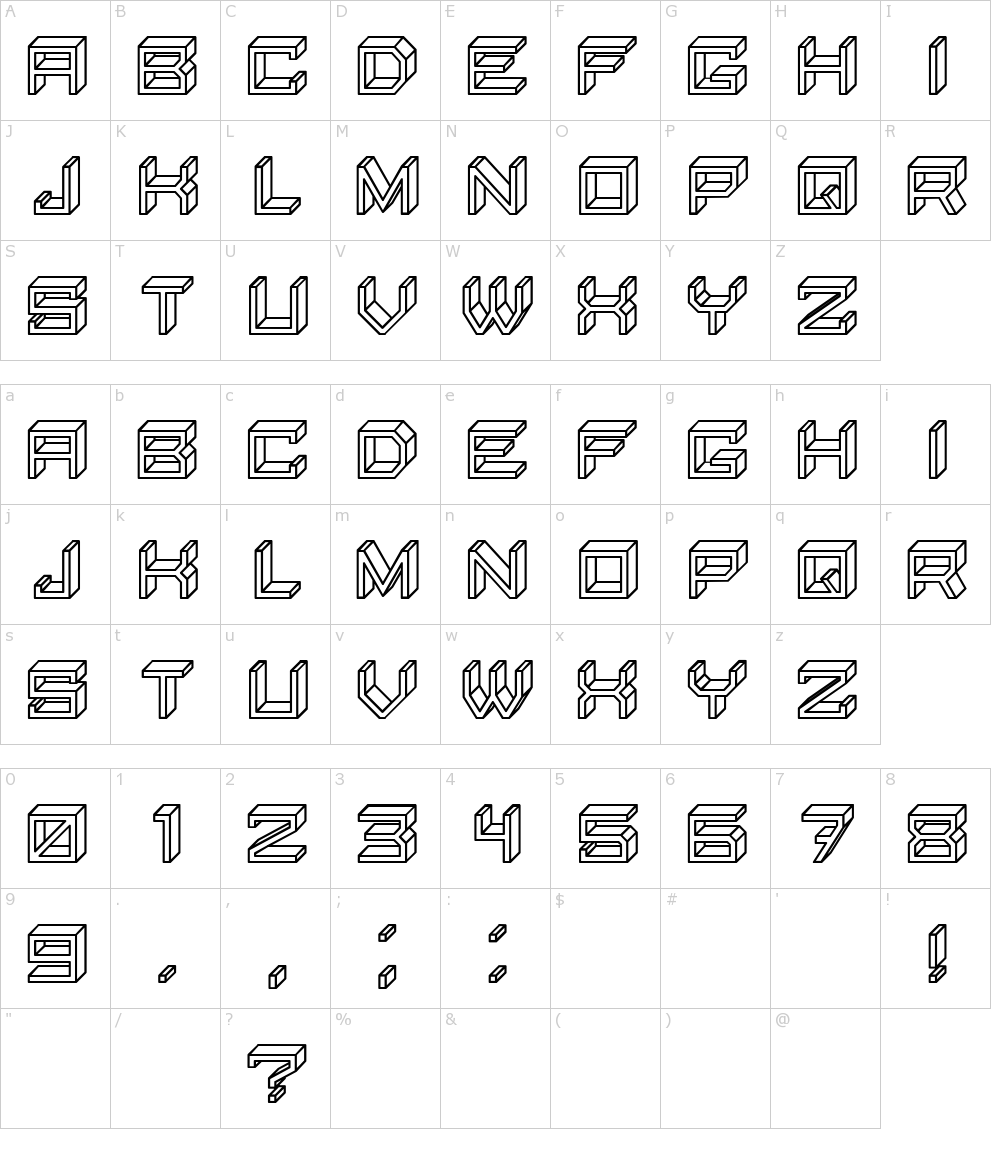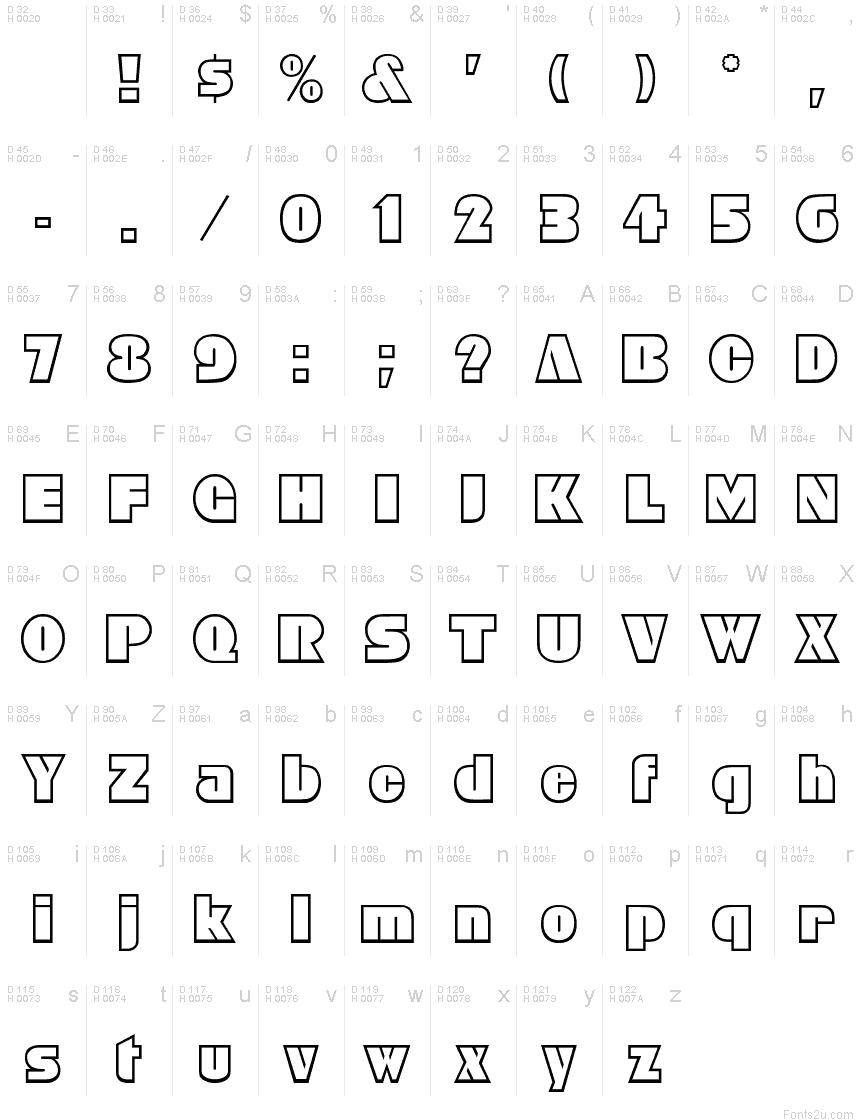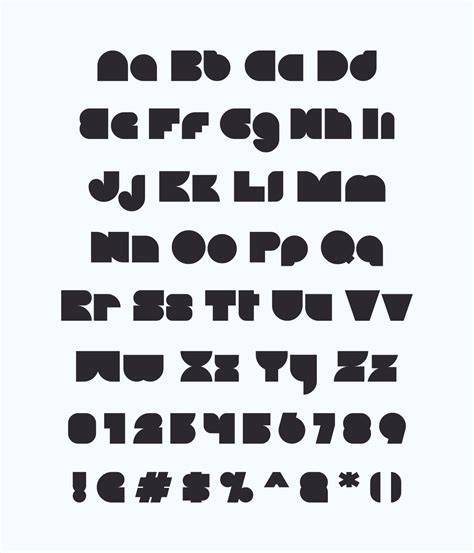
Fonts Blocky: Why They Are So Trendy In 2023
What Makes Fonts Blocky Special?
Fonts blocky are the perfect combination of modern and retro styles. They have a crisp, geometric look that is both classic and contemporary. Fonts blocky are the perfect way to add a touch of modern style to your design. They are easy to read, come in a variety of sizes, and are highly customizable. Plus, fonts blocky are highly versatile and can be used for a variety of design projects, from web design to logo design to advertising.
Fonts blocky can be used to create a sense of harmony in a design. They offer a clean, symmetrical look that can be used to create a sense of balance. They can also be used to create a sense of movement, which can be used to draw the eye to a particular element of a design.
Fonts blocky are also popular because of their versatility. They can be used in a variety of contexts, such as in web design, logo design, and advertising. They can also be used to create a sense of unity in a design, as they can be used to create a consistent visual style.
How to Use Fonts Blocky Effectively
Fonts blocky can be used in a variety of ways. To create a modern and stylish look, fonts blocky should be used in combination with other font styles. For example, if you are creating a website, you can combine fonts blocky with a more traditional font such as Arial or Times New Roman. This combination will create a modern look that is still easy to read.
Fonts blocky can also be used to create a sense of movement. By varying the size and weight of the fonts, you can create a sense of flow and movement that will draw the eye to the most important elements of a design.
Fonts blocky can also be used to create a sense of depth. By using fonts blocky in combination with other font styles, you can create a sense of depth that will make your design stand out.
Examples of Fonts Blocky in Action
Fonts blocky are used in a variety of contexts, from web design to logo design to advertising. One of the most popular uses of fonts blocky is in the creation of logos. By combining fonts blocky with other font styles, you can create a logo that is both modern and timeless.
Fonts blocky can also be used in web design. By combining fonts blocky with other font styles, you can create a website that is both modern and easy to read. This combination will ensure that visitors to your website will be able to easily navigate your website and find the information they need.
Fonts blocky can also be used in advertising. By combining fonts blocky with other font styles, you can create an advertisement that is both modern and eye-catching. This combination will ensure that your advertisement stands out from the competition.
Why Fonts Blocky Are So Popular in 2023
Fonts blocky have become increasingly popular in 2023 due to their versatility and modern look. They are easy to read, come in a variety of sizes, and are highly customizable. Additionally, fonts blocky are highly versatile and can be used for a variety of design projects, from web design to logo design to advertising.
Fonts blocky also offer a sense of harmony in a design. They offer a clean, symmetrical look that can be used to create a sense of balance. Additionally, fonts blocky can be used to create a sense of movement, which can be used to draw the eye to a particular element of a design.
Fonts blocky are also popular because of their design versatility. They can be used in a variety of contexts, such as in web design, logo design, and advertising. They can also be used to create a sense of unity in a design, as they can be used to create a consistent visual style.
Fonts blocky are a modern and versatile font style that can be used in a variety of contexts. They offer a crisp, geometric look that is both classic and contemporary. Additionally, fonts blocky are highly versatile and can be used for a variety of design projects, from web design to logo design to advertising.
Fonts blocky also offer a sense of harmony in a design. They offer a clean, symmetrical look that can be used to create a sense of balance. Additionally, fonts blocky can be used to create a sense of movement, which can be used to draw the eye to a particular element of a design. Finally, fonts blocky can be used to create a sense of unity in a design, as they can be used to create a consistent visual style.